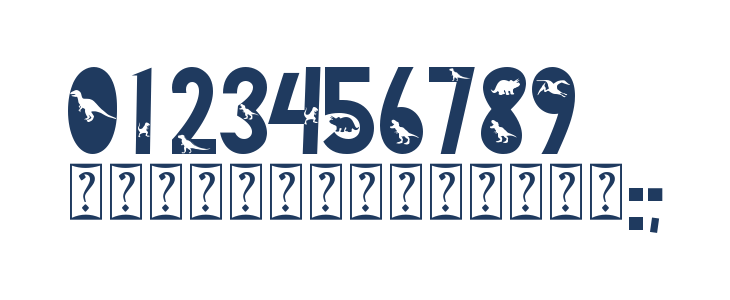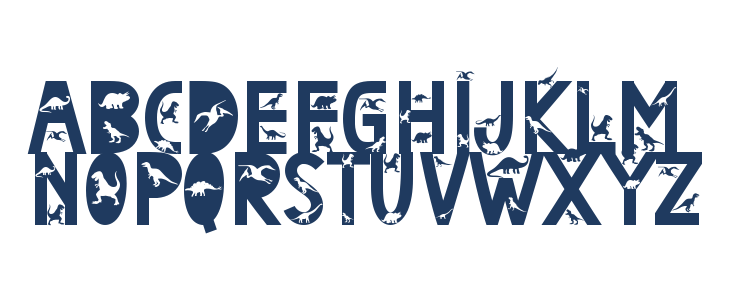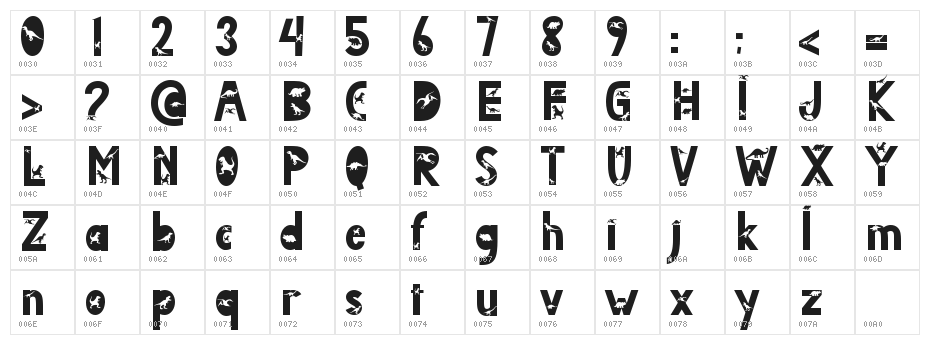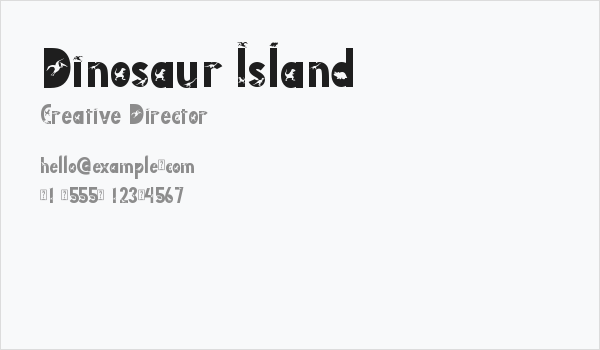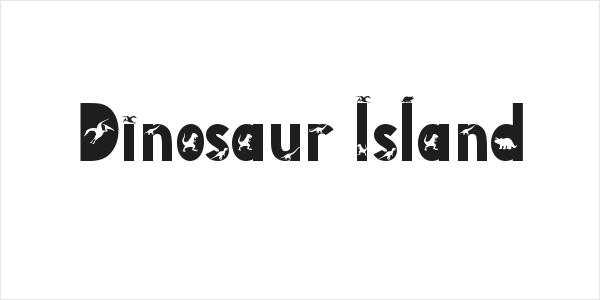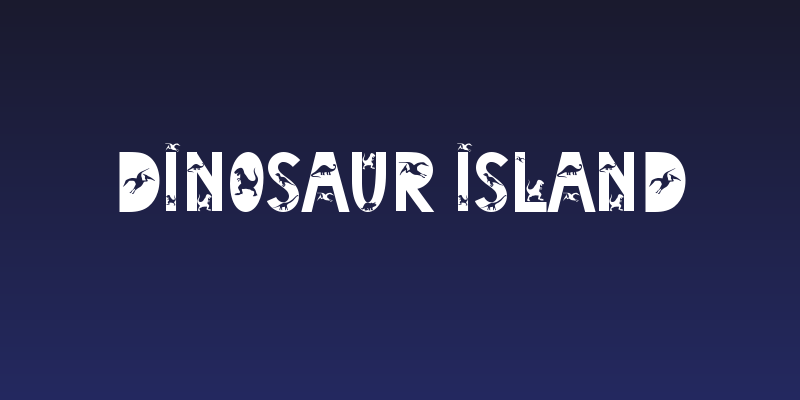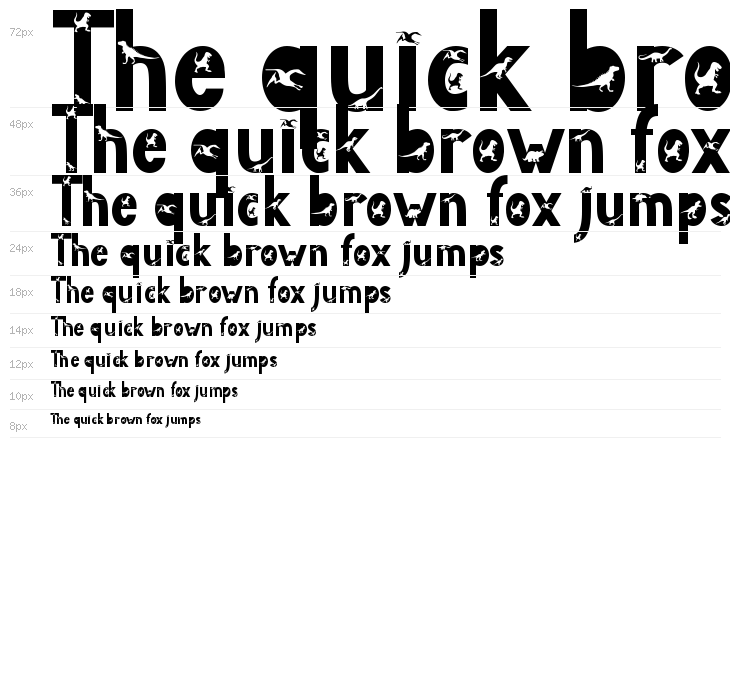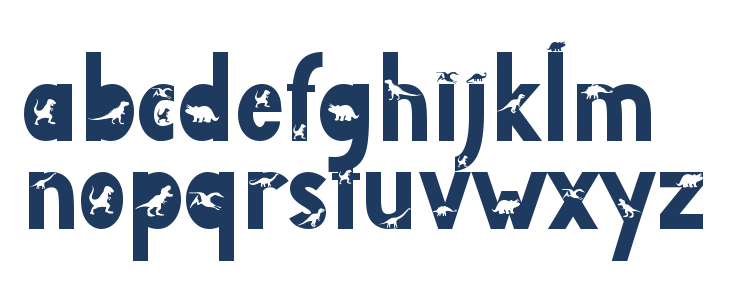
Dinosaur Island Font
Dinosaur Island Description
A bold, playful display font featuring dinosaur silhouettes integrated within each character, creating a whimsical and thematic appearance. The letterforms are geometric and sans-serif, with consistent stroke thickness and prominent decorative elements.
| Overall Style | Decorative, Playful, Thematic |
| Use Case | Headlines, Posters, Logos, Themed Graphics |
| Proposed Projects | Children's books, themed party invitations, educational materials, posters, toy packaging, event branding. |